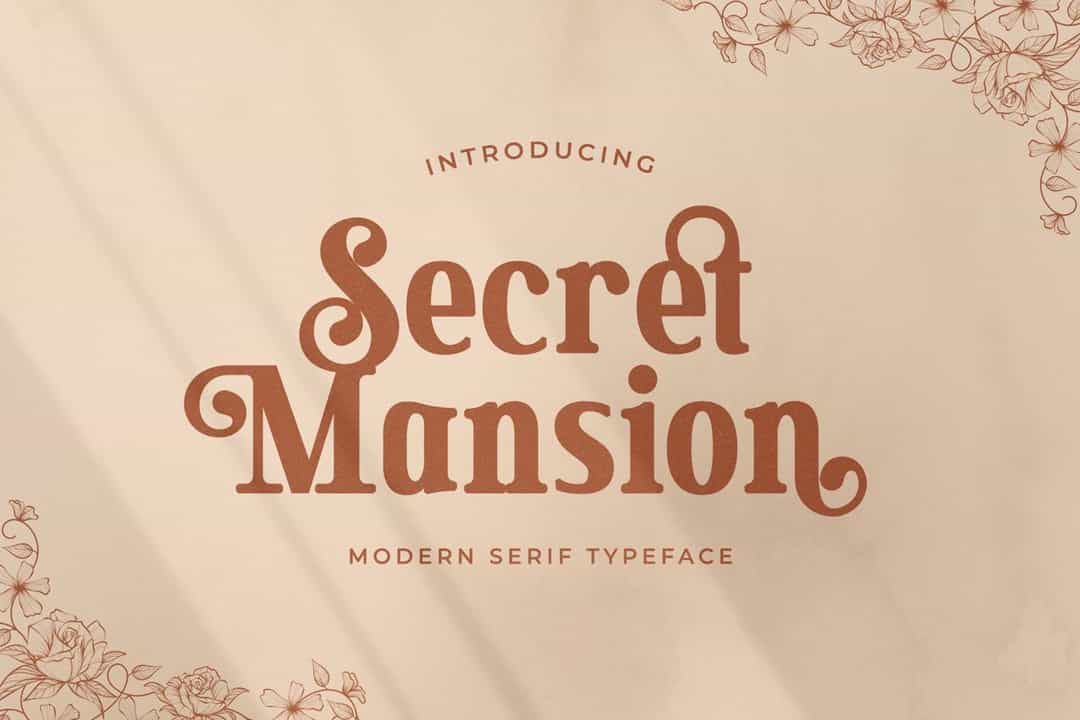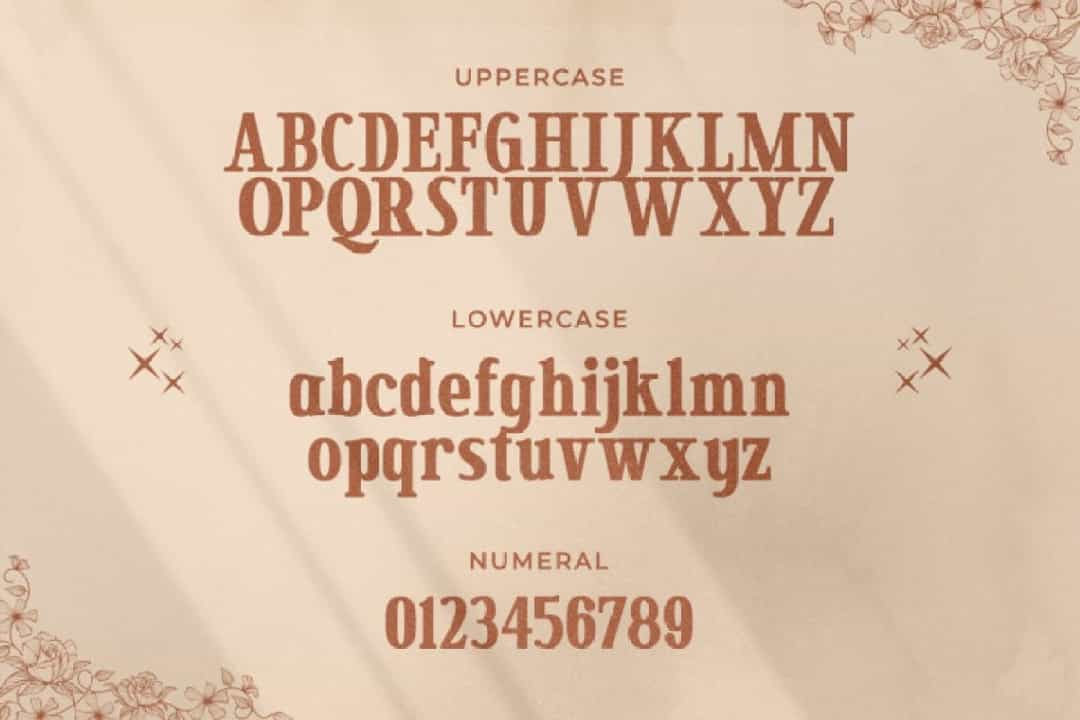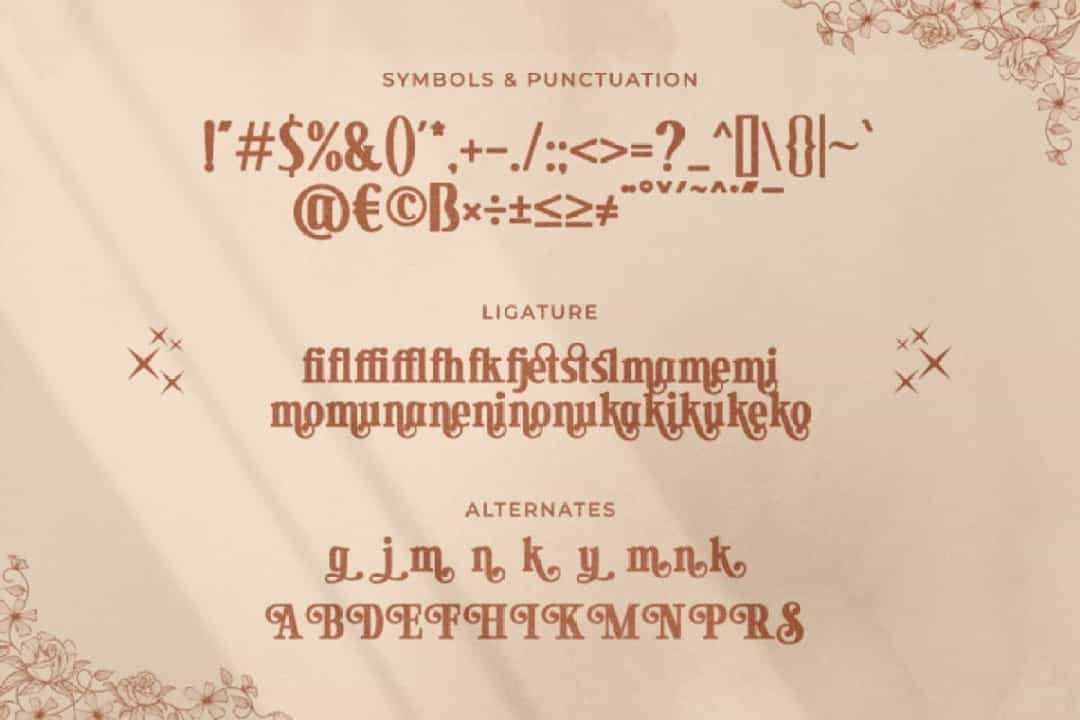
Secret Mansion is a refined display serif font that unites the conventional and the contemporary to create a font that is both functional and stylish. Well designed and can be easily incorporated into many different designs. Secret Mansion will allow you to create stylish and beautiful designs and all this while being versatile!